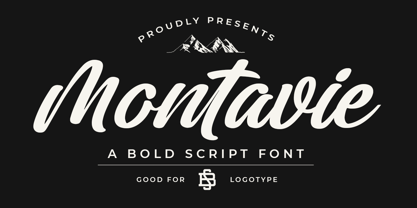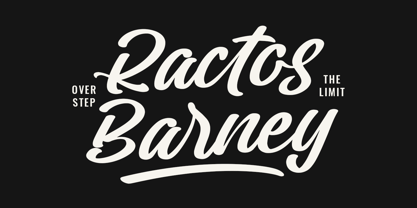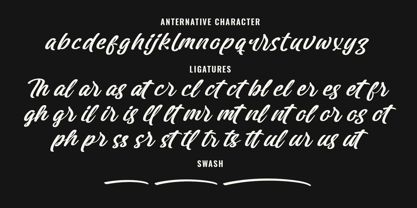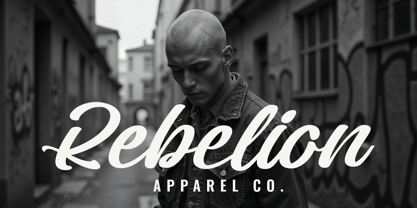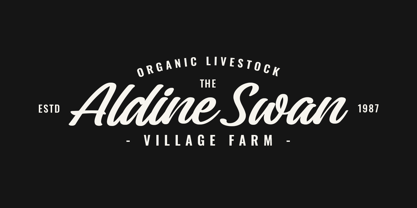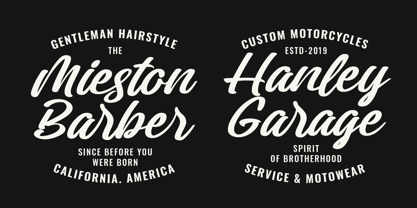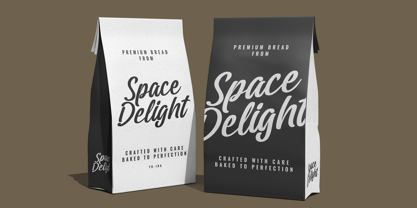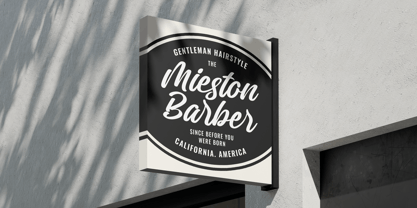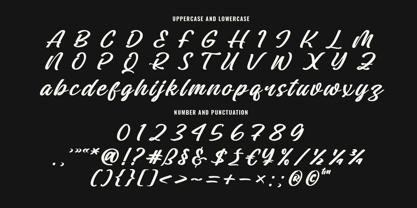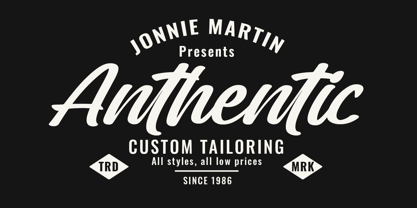
Montavie
by Blankids
The Montavie Font Family was designed by Bangkit Tri Setiadi and published by Blankids. Montavie contains 1 styles. More about this family
Montavie is a bold script typeface designed for modern branding and expressive logotypes. Featuring smooth curves, thick strokes, and a natural handwritten flow, this font delivers a strong balance between classic script elegance and contemporary design. Built with clarity and visual impact in mind, Montavie performs exceptionally well for logos, apparel, packaging, and display typography. Its fluid letterforms create a confident rhythm, while stylistic alternates and ligatures allow designers to craft unique and custom-looking wordmarks. Montavie includes uppercase and lowercase characters, numbers, punctuation, and alternative glyphs, making it a reliable choice for professional and commercial projects. Whether used for lifestyle brands, barber shops, vintage concepts, or modern identities, Montavie brings character, confidence, and timeless appeal to any design. Best For : Logo design, branding, apparel, packaging, posters, and social media graphics.